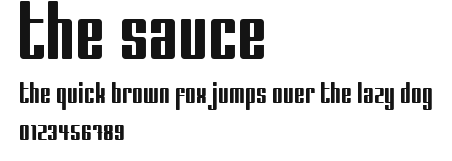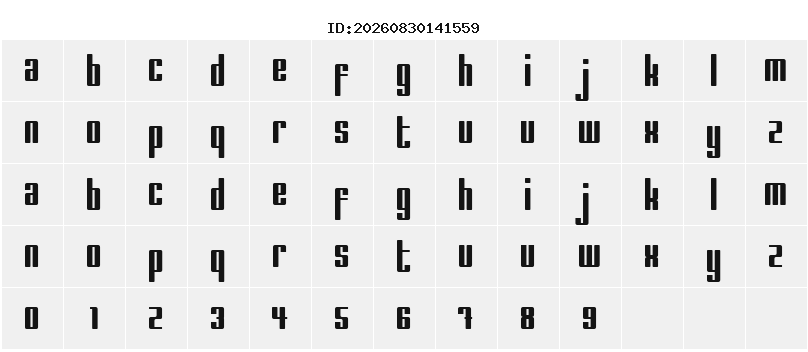
• Font Name: The Sauce
The Sauce.ttf is a modern, elegant sans-serif font designed for ultimate readability and visual harmony. Perfect for branding, headlines, web design, and print materials.